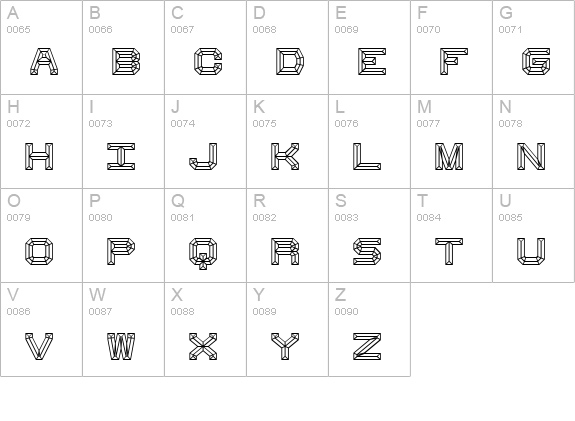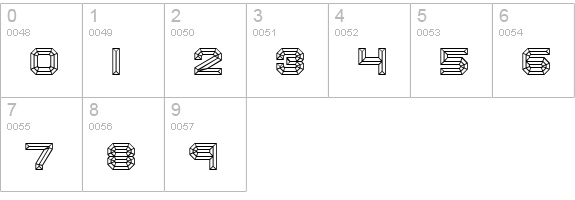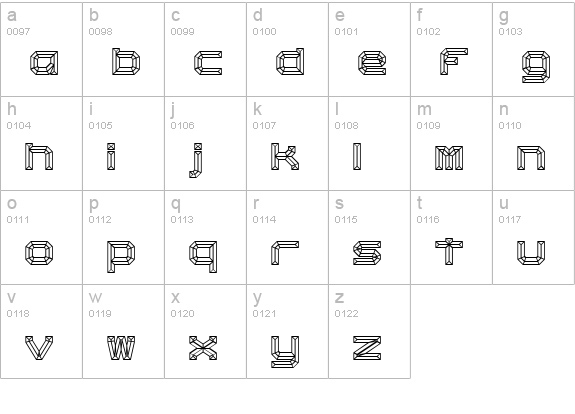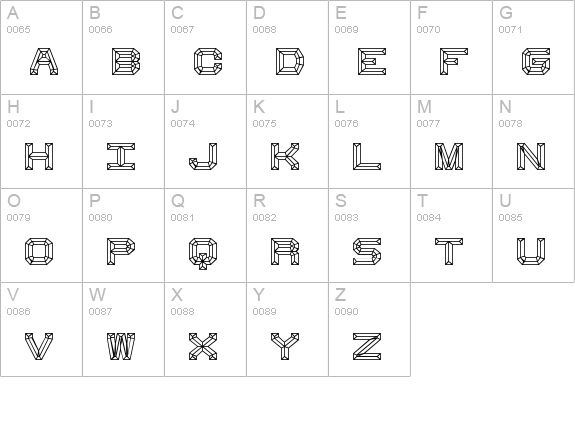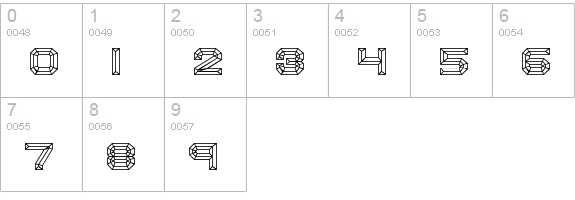
Heavy Bevel BRK is a heavy, high-impact variant in the Heavy typeface family \xE2\x80\x94 well suited to high-impact headlines, posters, and display advertising.
The Heavy Bevel BRK font is a striking display typeface that adds a bold and impactful touch to any design. Its strong beveled edges and distinct letterforms make it ideal for headlines, titles, logos, and other attention-grabbing projects. This font exudes a sense of strength and power, with its heavy weight and sharp angles. It commands attention and demands to be noticed, making it perfect for projects that require a strong and impactful visual presence. The Heavy Bevel BRK font is also versatile, capable of being used in a variety of design styles. Whether you're going for a modern, futuristic look or a more vintage and retro aesthetic, this font can adapt to suit your needs. And the best part? The Heavy Bevel BRK font is available for free download at FontsMarket.com. That's right, you can access this dynamic font without spending a dime. FontsMarket.com offers a wide range of high-quality fonts, and the Heavy Bevel BRK font is just one of many incredible options available. So why wait? Give your designs a bold and powerful edge with the Heavy Bevel BRK font. Download it for free at FontsMarket.com and take your projects to new heights.